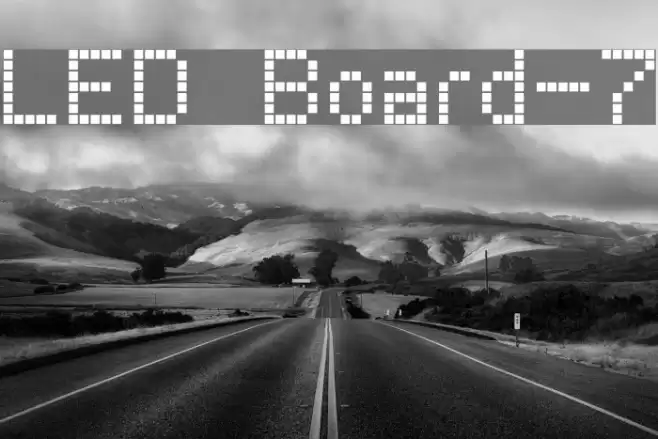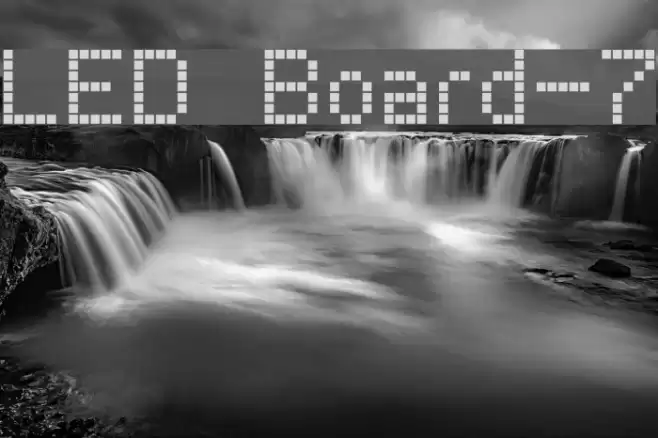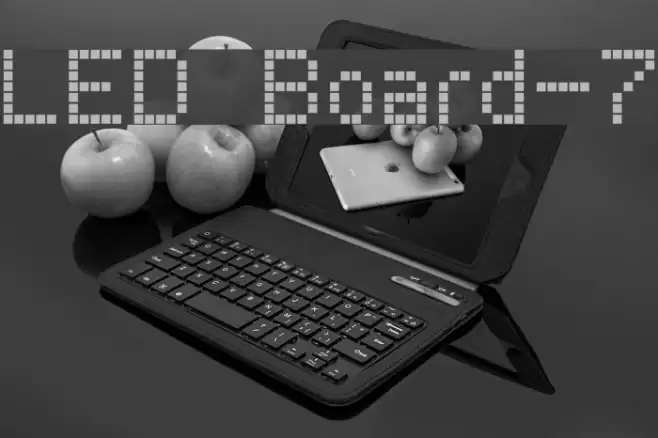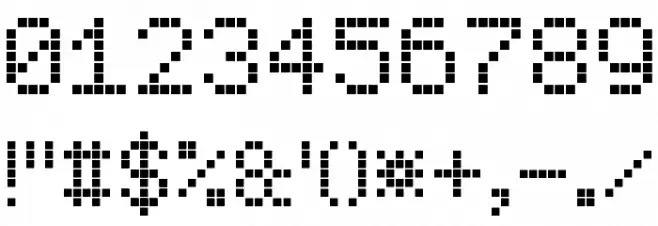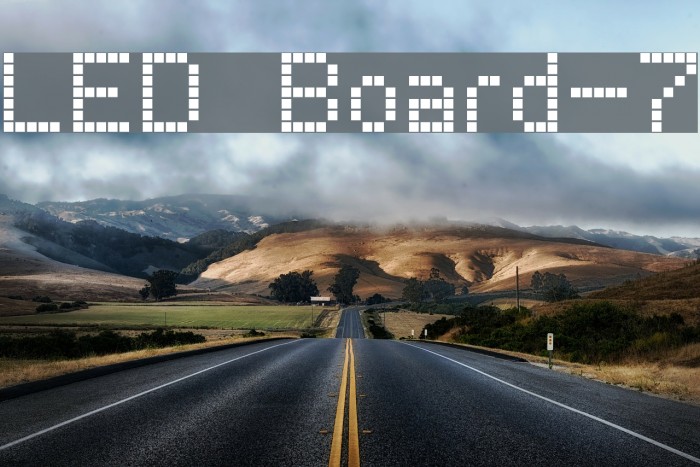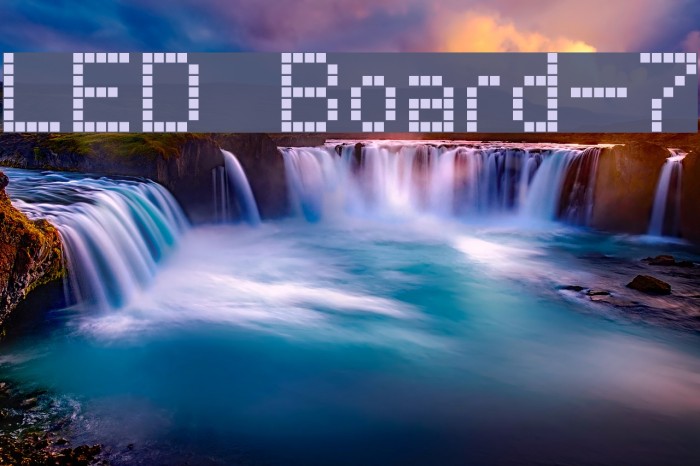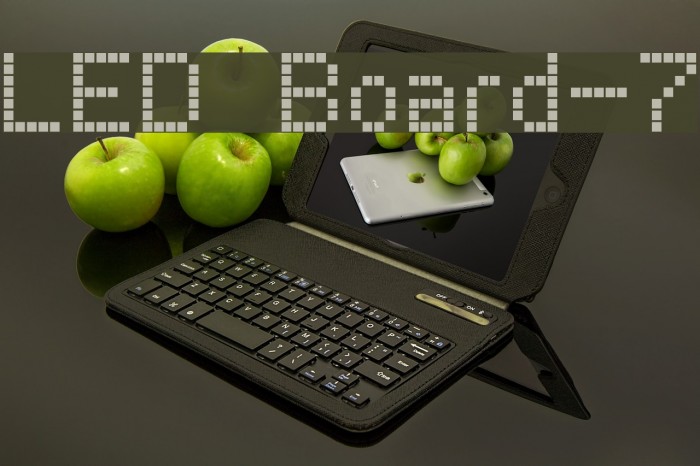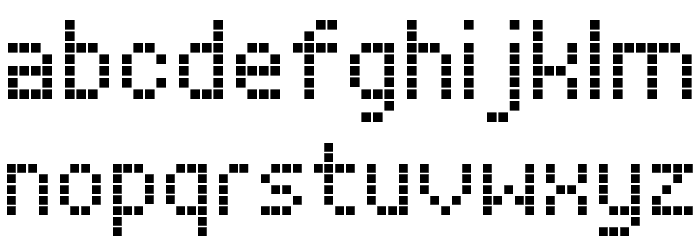
LED Board-7 Font
LED Board-7 Description
This font features a distinctive pixelated design reminiscent of classic LED displays. Each character is composed of small, square dots arranged in a grid, creating a digital and retro aesthetic. The uppercase and lowercase letters maintain a consistent height, with clear differentiation between each character. Numbers and special characters follow the same pixelated style, ensuring uniformity across all glyphs. This font is ideal for projects that aim to evoke a sense of nostalgia or a technological theme, such as digital displays, retro video games, or tech-themed branding.
A pixelated, LED-style font with a retro digital aesthetic from Futuristic fonts.
- Font: LED Board-7
- Proposed Projects: Ideal for digital displays, retro video games, tech-themed branding, and nostalgic designs.
- Overall Style: Retro, Digital
- Use Case: Headlines, Logos, Digital displays